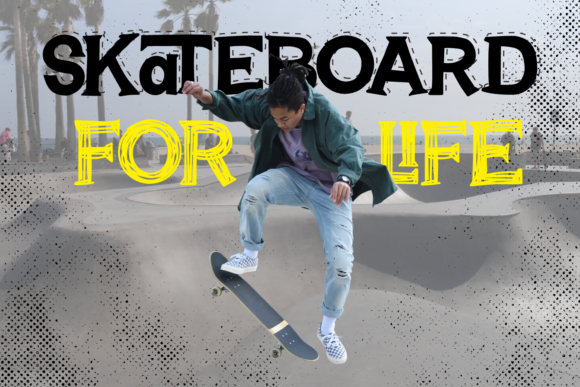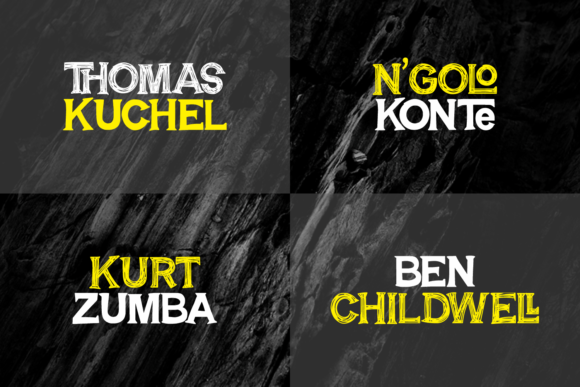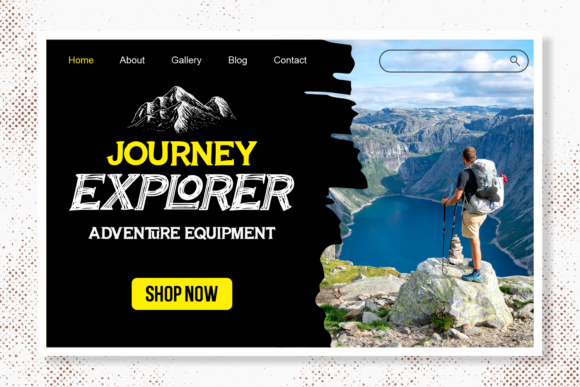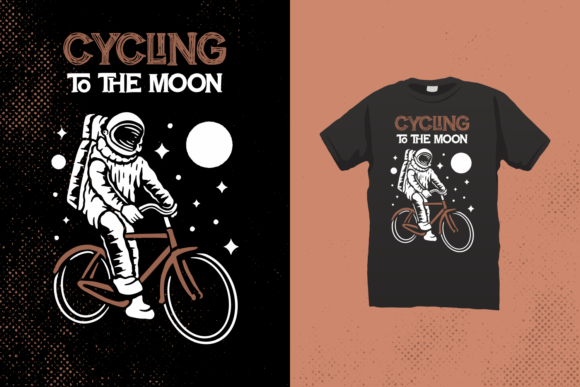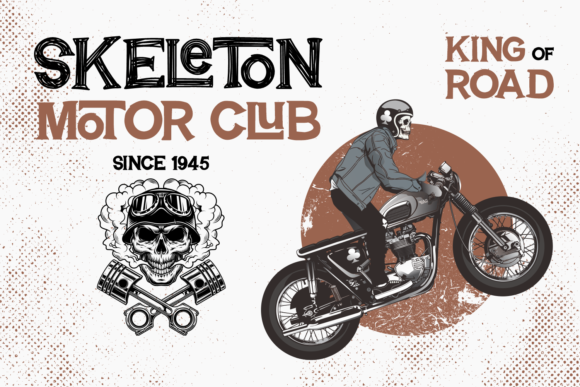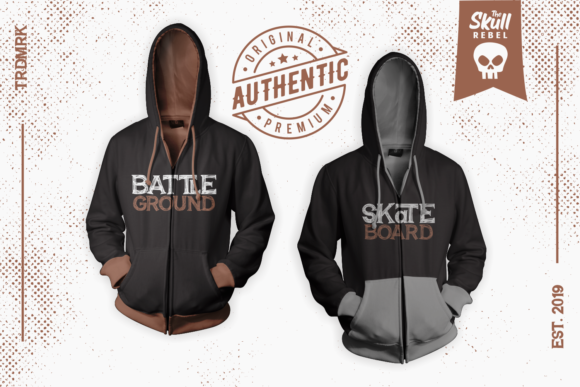
The Ultimate Display Font: Breaking Spawn
Have you ever been in the middle of a design project, and suddenly, you’re stuck on finding the perfect font? I recall a particularly frustrating experience while working on a branding project for a bold, outdoor gear company. My client wanted a font that screamed adventure, ruggedness, and excitement. After hours of searching, I stumbled upon Breaking Spawn, and it was love at first sight! 💡
This cool, bold, and imposing display font has been a game-changer in my design journey, and I’m excited to share its awesomeness with you. Whether you’re a designer, crafter, or creative hobbyist, Breaking Spawn has the potential to elevate any creation.
• ✨ Bold and Imposing: Breaking Spawn is perfect for making a statement. Its bold strokes and sharp edges demand attention, making it ideal for headings, titles, and emphasis.
• ✅ Versatile: Despite its bold nature, this font works well across various themes and topics. Use it for sports, outdoor gear, technology, or even luxury brands – it’s incredibly adaptable.
• 💥 Unique Character: Breaking Spawn has a distinct personality that sets it apart from other display fonts. Its ruggedness and edginess add a touch of excitement to any design.
While Breaking Spawn is an exceptional font, there are a few things to keep in mind:
• 🤔 Legibility at Small Sizes: Due to its bold nature, Breaking Spawn may not be the best choice for body text or small font sizes. It’s best used for headings and titles.
• ⚠️ Limited OpenType Features: While Breaking Spawn has some impressive OpenType features, it may not have the same level of complexity as some other fonts.
Breaking Spawn was created with the goal of crafting a bold, attention-grabbing font that would inspire designers to push the limits of their creativity. Its designer drew inspiration from the world of sports, outdoor gear, and technology, aiming to create a font that would embody the spirit of adventure and excitement.
What type of projects is Breaking Spawn best suited for? Breaking Spawn is perfect for projects that require a bold, attention-grabbing font, such as headings, titles, and emphasis. It’s ideal for branding, advertising, and marketing materials.
Can I use Breaking Spawn for body text? While Breaking Spawn is an exceptional font, it’s not recommended for body text due to its bold nature. It’s best used for headings and titles.
Does Breaking Spawn have OpenType features? Yes, Breaking Spawn has some impressive OpenType features, including glyphs and stylistic alternates. These features can be accessed in compatible software, such as Adobe Photoshop and Illustrator.
Is Breaking Spawn suitable for digital use? Absolutely! Breaking Spawn is a versatile font that works well in both print and digital environments. Its bold nature makes it perfect for digital designs, such as website headings, social media graphics, and more.